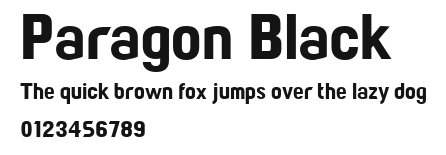
Paragon Black Preview
• Font Name: Paragon Black
• Font Style: Black
• Full Font Name: Paragon Black
• Designer: Tino Mendes
• Manufacturer: Tino Mendes
About Paragon Black.ttf
Paragon Black.ttf is a modern, elegant sans-serif font designed for ultimate readability and visual harmony. Perfect for branding, headlines, web design, and print materials.